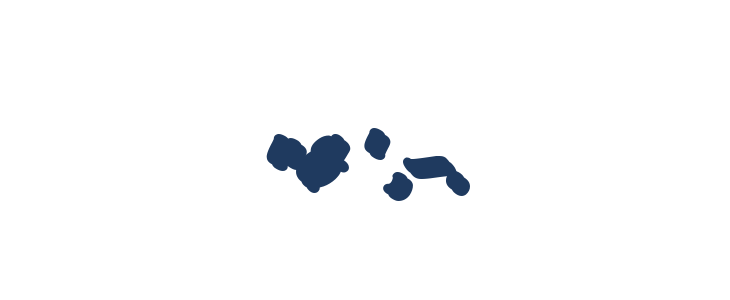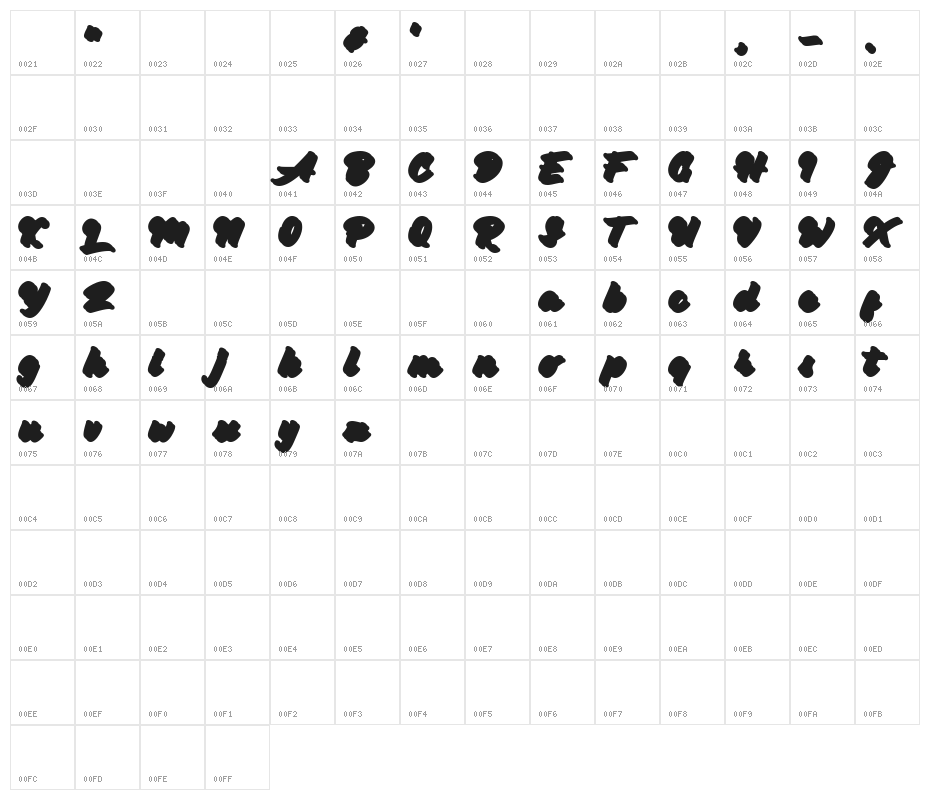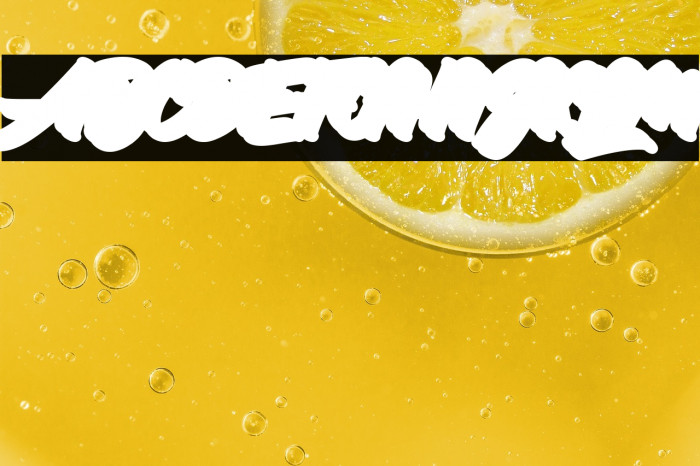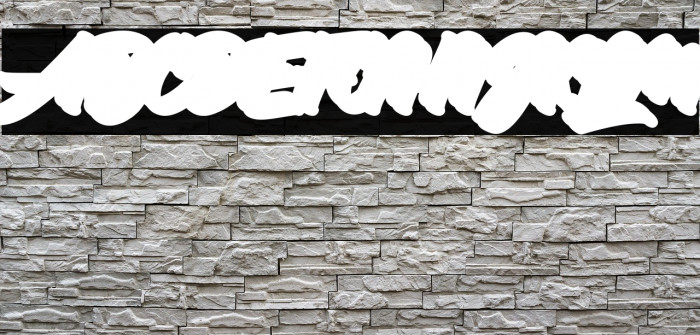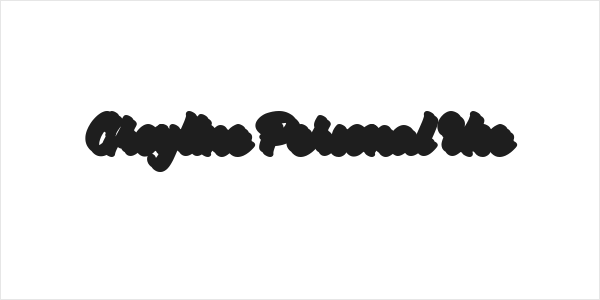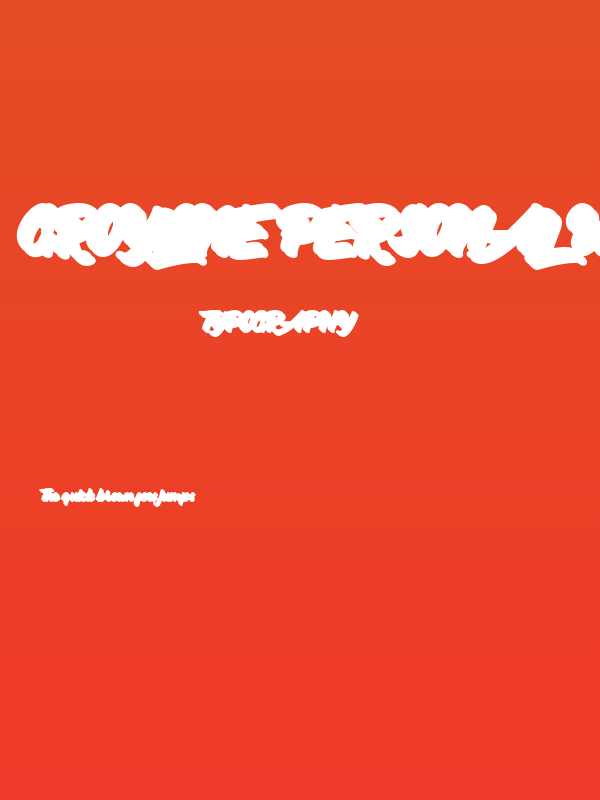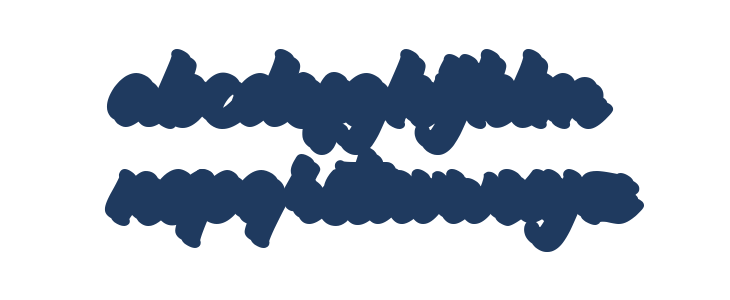
Groyline Personal Use Font
Groyline Personal Use Description
This font features a bold, expressive style with thick, flowing strokes that give it a dynamic and energetic appearance. The characters are interconnected, creating a sense of movement and fluidity. Its handwritten quality is emphasized by the irregularities in stroke width and the organic, freeform shapes of the letters. The font's boldness makes it stand out, while the cursive style adds a touch of elegance and personality. It is well-suited for creative projects that require a personal touch or a statement piece.